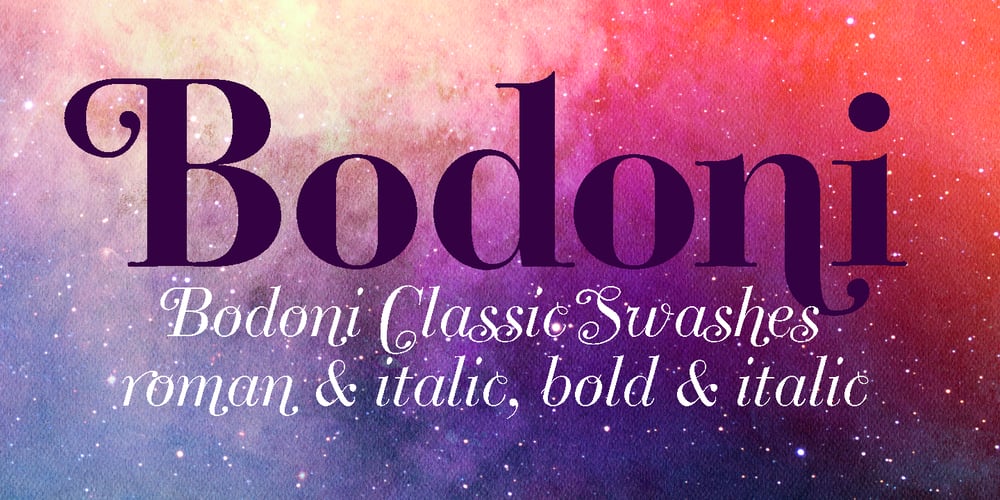
Bodoni Classic Swashes
Bodoni Classic Swashes font
Bodoni Classic Swashes Font Family was designed by Gert Wiescher and published by Wiescher Design. Bodoni Classic Swashes contains 4 styles and family package options. Bodoni Classic Swashes is my personal addition to Bodoni’s family of typefaces. Bodoni did not design a decorative version. His quest was for purity in book design. Even though in his days it was not called design; he thought of himself purely as a printer. But I think, especially after visiting the Bodoni museum in Parma, if Giambattista were alive today he would design a decorative typeface. Yours classico, Gert Wiescher